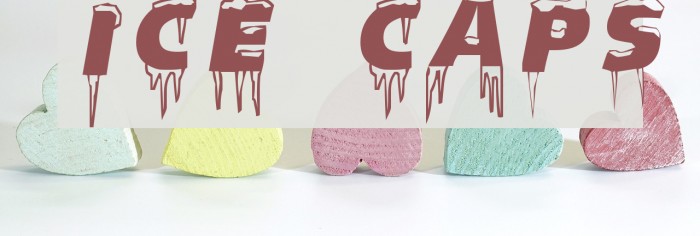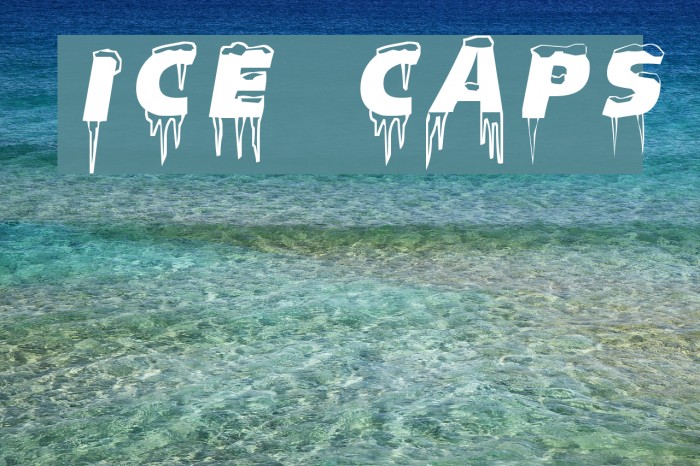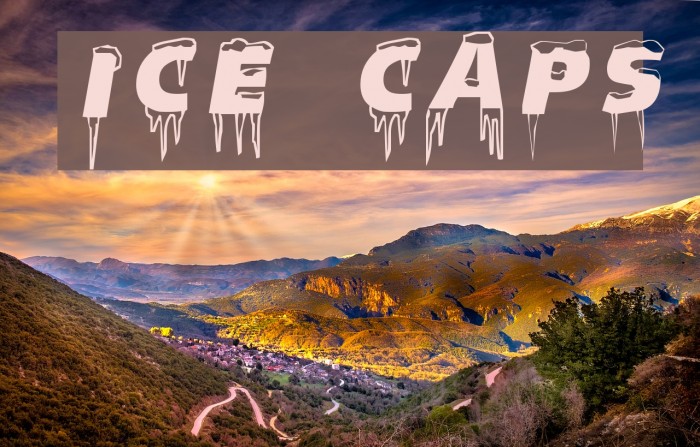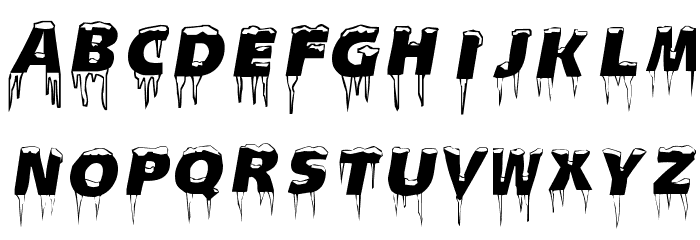
Ice Caps Font
Ice Caps Description
This font features a playful and thematic design, reminiscent of icy landscapes. Each character is adorned with icicles hanging from the bottom, giving it a frosty and wintery appearance. The letters are bold and slightly slanted, adding a dynamic and energetic feel. The uppercase and lowercase letters maintain a consistent style, with the numbers also following the same icy theme. The special characters are not visible, suggesting a focus on alphanumeric characters. This font is ideal for projects that require a fun, seasonal touch, particularly for winter-themed designs.
| Proposed Projects | Ideal for winter-themed posters, holiday cards, and festive event invitations. |